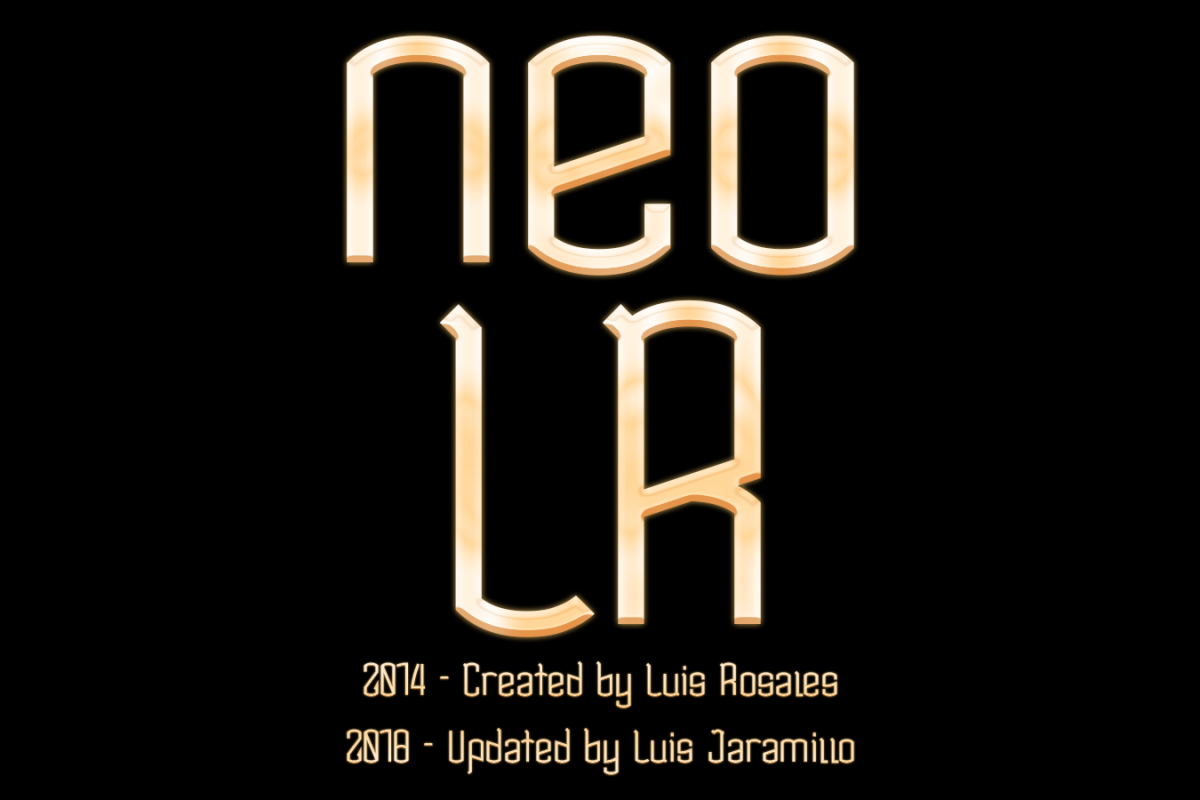
NEO LR
Created in 2014 NEO LR arrives in 2018 with a new design totally adaptable to many styles, including urbanism.
It is ideal for creating urban youth concepts, it is also very accurate for advertising musical events, it is a great alternative to highlight a Rap or Hip hop logo!
A fine layout and very aesthetic curves come to be part of your environment and style.
Creado en el 2014 NEO LR llega en 2018 con un nuevo diseño totalmente adaptable a muchos estilos, incluyendo el urbanismo.
Es ideal para crear conceptos juveniles urbanos, también es muy precisa para hacer publicidad de eventos musicales, es una gran alternativa para destacar un logotipo de Rap o Hip hop!
Un trazado fino y curvas muy estéticas llegan para hacer parte de tu entorno y estilo.